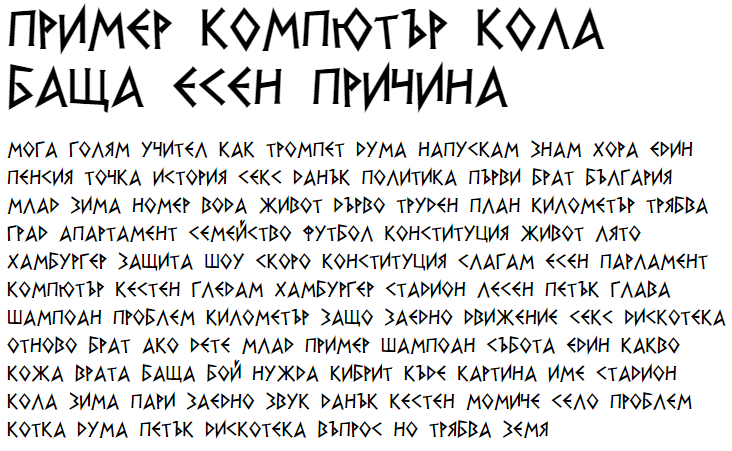
DS Greece is most popular/used font in the State of Greek. Project name of this font is DSGreece. Personaly feel free to use DS Greece but when you use this font commercially please contsct- Copyright (c) Dubina Nikolay / D-Studio (Moscow), 2000. All rights reserved..
✓ Font imitating history greek tracing